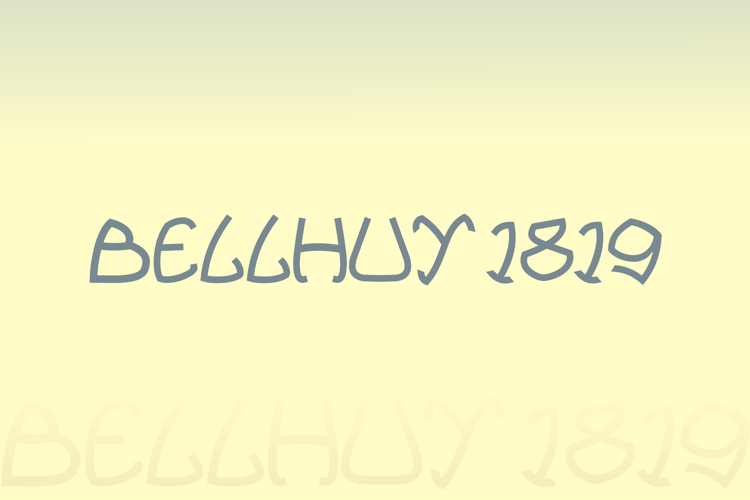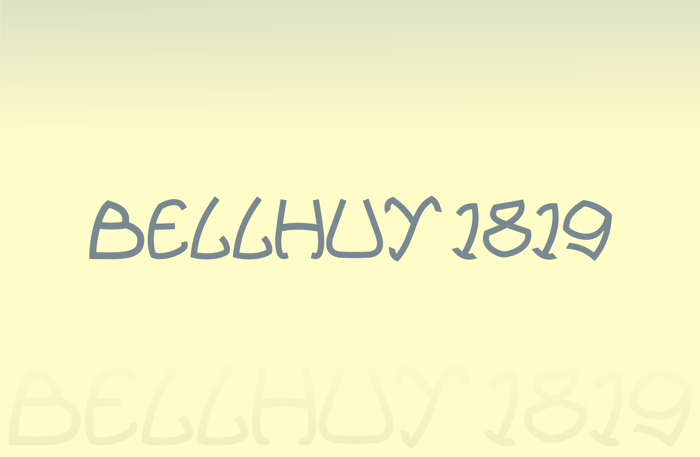
Belhuy Font
About Belhuy Font
More info from Fontabenka
This Font callled - Bellhuy 1819 - vol.001.2jetblues2019-from Bellhuy family fonts I have created,will continue in other version.You can use them for any personal or commercial project, logo, branding, Web and App development, anything you can image is cool with us.other permission please email us,Have a Great Day and Enjoy!